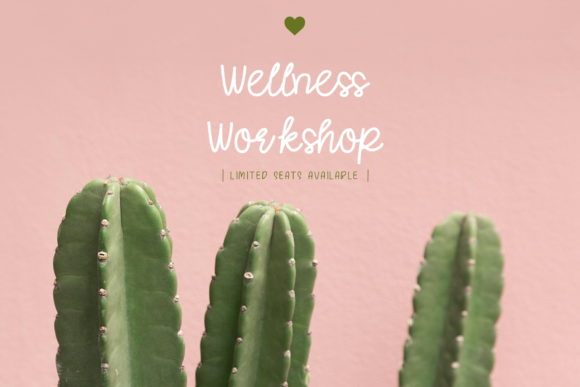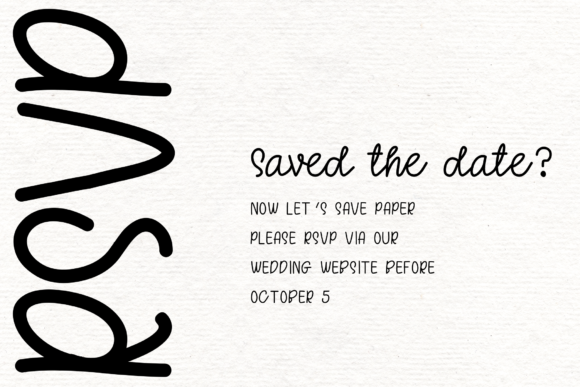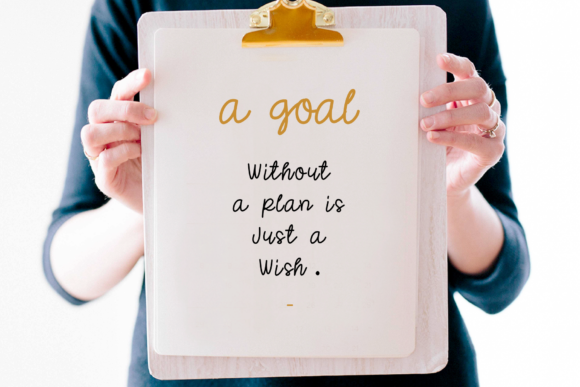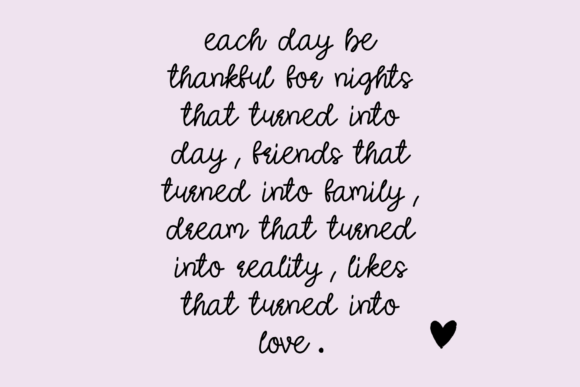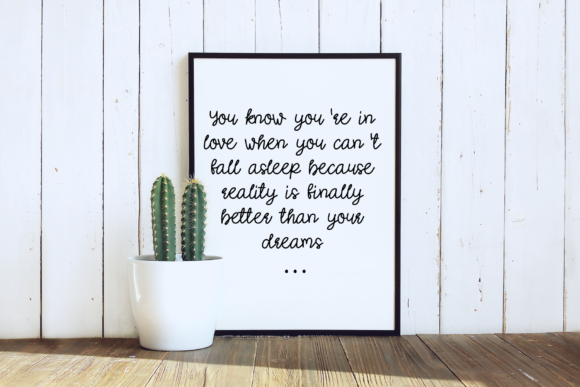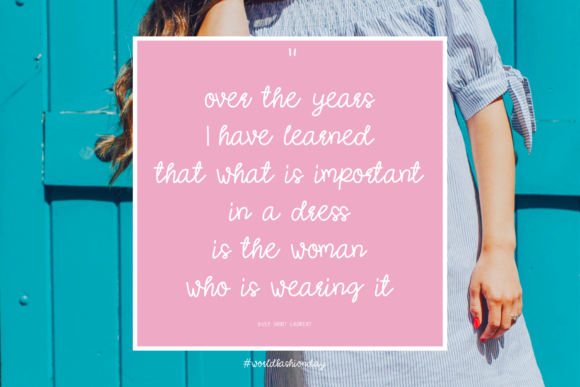
Gloriosa Daisy Font: Elevate Your Designs with Elegance
Are you on the hunt for a font that exudes elegance and sophistication? Look no further than the Gloriosa Daisy Font. This stunning, flowing handwritten font is sure to capture your heart with its incredibly distinct and timeless style. In this article, we’ll dive into the world of Gloriosa Daisy, exploring its unique features, uses, and benefits for designers and crafters alike.
The Essence of Gloriosa Daisy Font
Gloriosa Daisy is a beautiful, handwritten font that boasts an elegant touch, making it perfect for a wide range of projects. Its flowing lines and curves create a sense of movement and fluidity, adding a touch of sophistication to any design. Whether you’re working on a logo, branding materials, or creative crafts, Gloriosa Daisy is sure to make a statement.
Key Features of Gloriosa Daisy Font
- Flowing Handwritten Style: Gloriosa Daisy features a beautiful, flowing handwritten style that’s perfect for creating elegant and sophisticated designs.
- Elegant Touch: The font’s elegant touch makes it ideal for projects that require a high level of sophistication, such as luxury branding, wedding designs, and high-end crafts.
- Distinct and Timeless Style: Gloriosa Daisy’s incredibly distinct and timeless style ensures that your designs will stand out from the crowd and remain relevant for years to come.
- Versatility: This font is perfect for a wide range of projects, including logos, branding materials, posters, flyers, and creative crafts.
Uses for Gloriosa Daisy Font
Gloriosa Daisy is an incredibly versatile font that can be used for a variety of projects, including:
- Logo Design: Create stunning logos that exude elegance and sophistication with Gloriosa Daisy.
- Branding Materials: Use Gloriosa Daisy to create beautiful branding materials, such as business cards, letterheads, and brochures.
- Wedding Designs: Add a touch of elegance to your wedding designs, including invitations, programs, and decorations.
- Creative Crafts: Use Gloriosa Daisy to create beautiful crafts, such as handmade cards, gift tags, and scrapbooking projects.
Benefits of Using Gloriosa Daisy Font
So, why choose Gloriosa Daisy Font for your next project? Here are just a few benefits:
- Elegance and Sophistication: Gloriosa Daisy adds a touch of elegance and sophistication to any design.
- Unique and Memorable: The font’s incredibly distinct and timeless style ensures that your designs will be unique and memorable.
- Easy to Read: Despite its elegant and flowing style, Gloriosa Daisy is easy to read, making it perfect for body text and headlines.
- Customizable: Gloriosa Daisy can be easily customized to fit your project’s specific needs, including adjusting font sizes, colors, and styles.
Tips for Using Gloriosa Daisy Font
To get the most out of Gloriosa Daisy Font, here are a few tips:
- Pair with Other Fonts: Experiment with pairing Gloriosa Daisy with other fonts to create stunning contrast and visual interest.
- Adjust Font Sizes: Adjust font sizes to create visual hierarchy and emphasize important information.
- Experiment with Colors: Try out different colors to find the perfect match for your project’s brand and aesthetic.
In conclusion, Gloriosa Daisy Font is a stunning, flowing handwritten font that’s perfect for designers and crafters looking to add a touch of elegance and sophistication to their projects. With its incredibly distinct and timeless style, versatility, and ease of use, Gloriosa Daisy is sure to become a favorite in your font collection. So why wait? Fall in love with Gloriosa Daisy and start creating spectacular designs today!